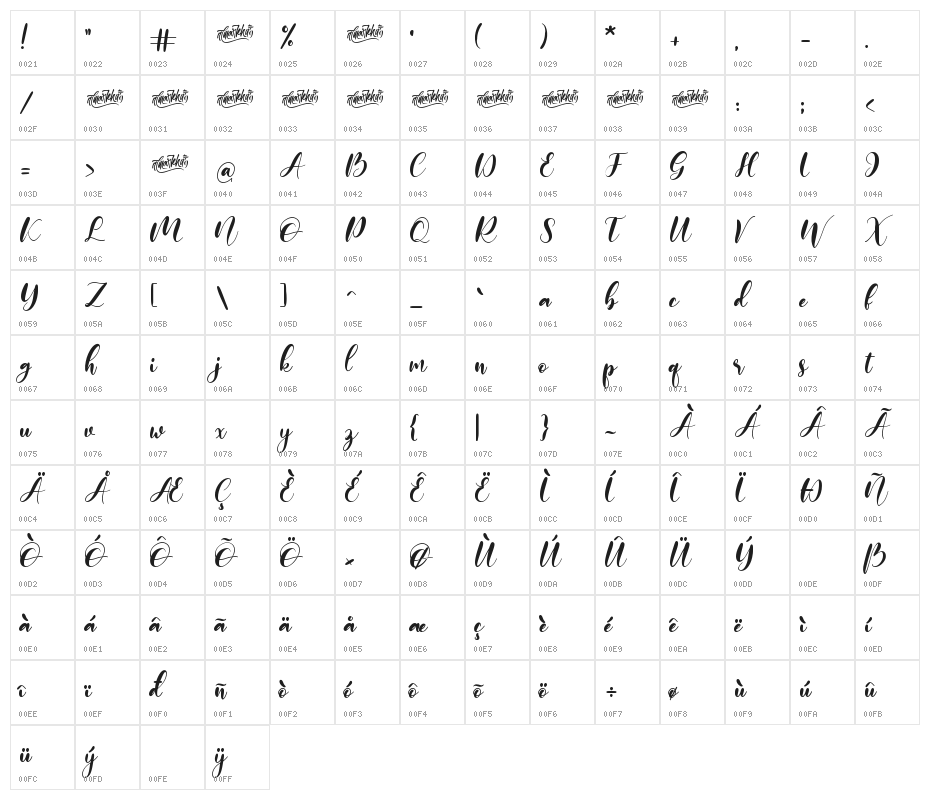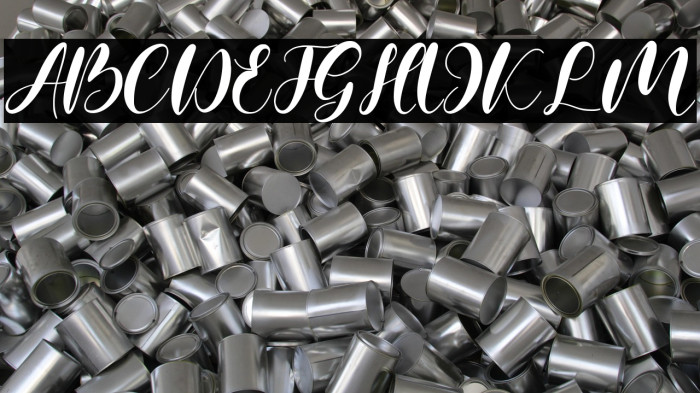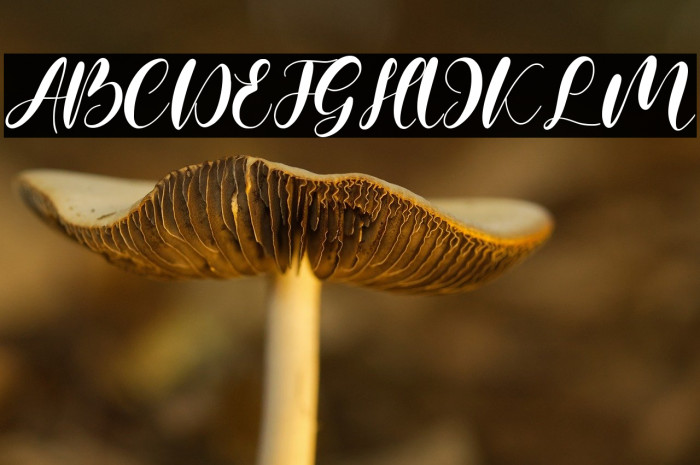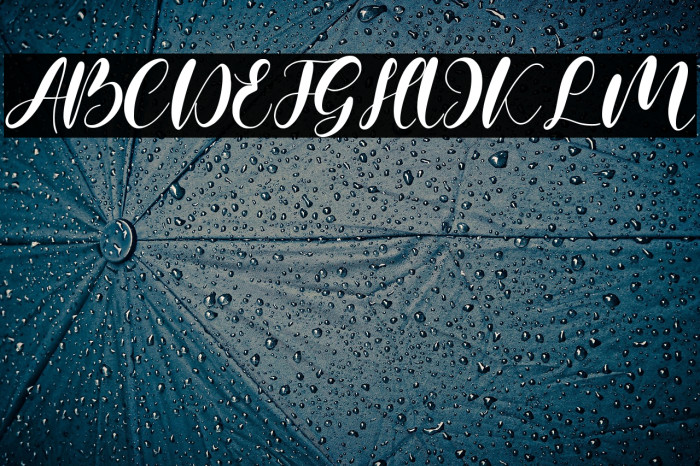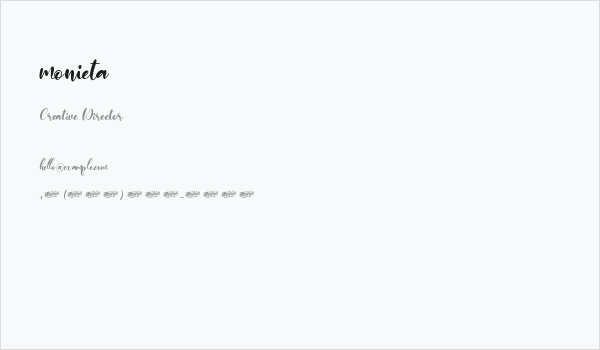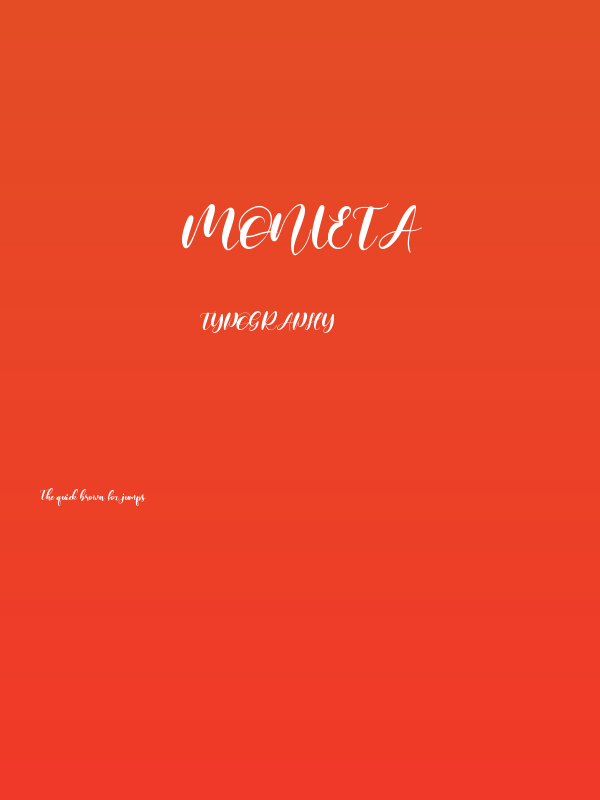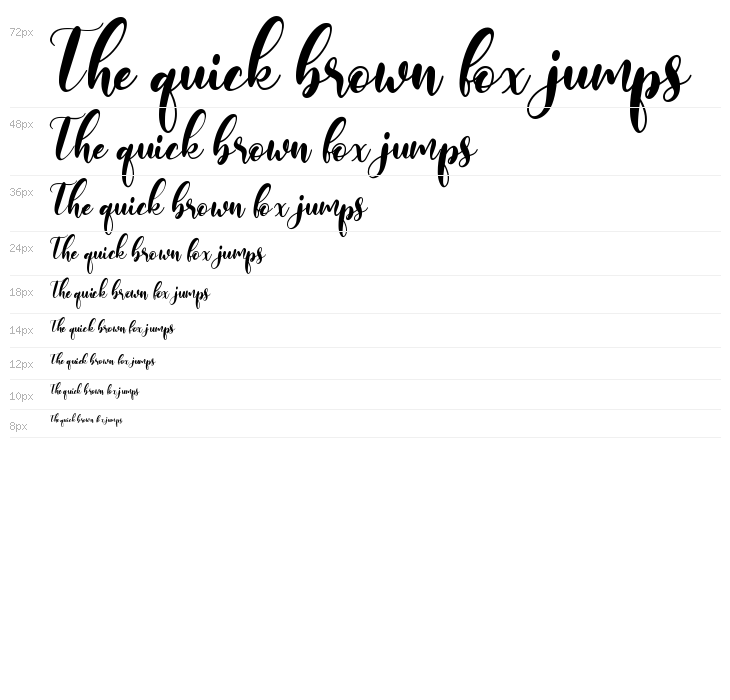
monieta Font
monieta Description
This font features an elegant and flowing script style, characterized by its smooth, cursive strokes and graceful curves. The uppercase letters are particularly ornate, with sweeping ascenders and descenders that give a sense of movement and fluidity. The lowercase letters maintain a consistent style, with a slightly more compact form that complements the uppercase. The numerals and special characters are designed to match the overall aesthetic, with a playful yet sophisticated appearance. This font's high contrast between thick and thin strokes adds to its dramatic and stylish look, making it suitable for a variety of creative applications.
| Overall Style | Elegant, Decorative |
| Proposed Projects | Ideal for wedding invitations, branding, logos, and elegant packaging designs. |